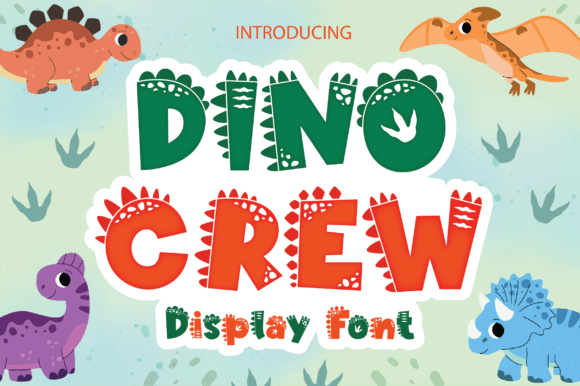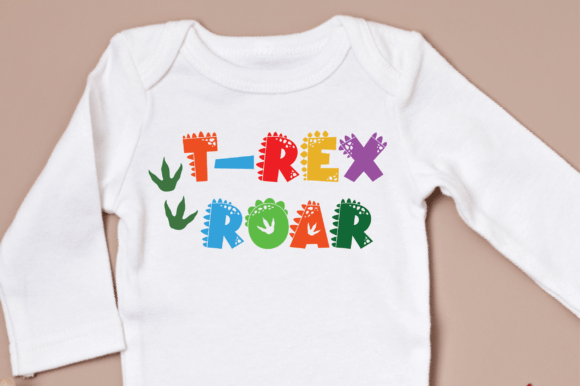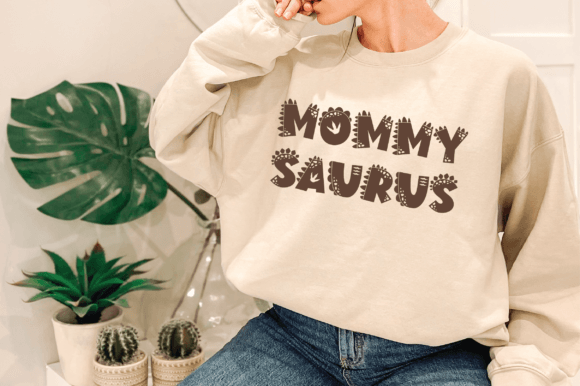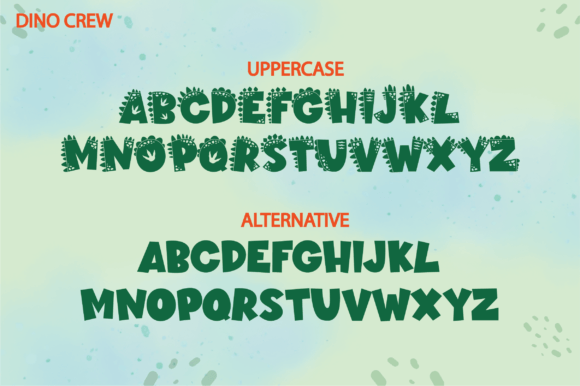
Dino Crew Font: A Playful Display Font for Cute Kids Designs & DIY Projects
About the Dino Crew Font
Unleash your creativity with Dino Crew Font, a versatile font perfect for a wide range of applications. Dino Crew is a playful and whimsical decorative font that is perfect for designs aimed at children or the young at heart. Its cheerful and colorful appearance will bring a sense of fun and joy to any project, making it ideal for book covers, posters, invitations, and more.
Dino Crew’s playful energy makes it a strong choice for children’s book covers, branding for toy companies, or playful event posters. It excels in headlines and short, impactful text segments where its whimsical forms add visual interest. However, its decorative nature makes it less suitable for body text or UI elements requiring high readability. Avoid using it for long paragraphs or applications demanding clear, concise information.
Pairing Dino Crew with a clean sans-serif like Open Sans for body text creates a balanced contrast, allowing the display font to shine without overwhelming the reader. Alternatively, a classic serif like Garamond could provide an elegant counterpoint, enhancing Dino Crew’s playful energy while maintaining sophistication. For a more modern feel, consider pairing it with a geometric sans-serif such as Futura.
The font’s overall personality is undeniably cheerful and friendly, making it a great choice for projects aimed at a younger audience or those needing a touch of lightheartedness. Its bold, expressive forms are ideal for conveying fun and excitement.
Dino Crew Font Usage Examples
Dino Crew Font Example